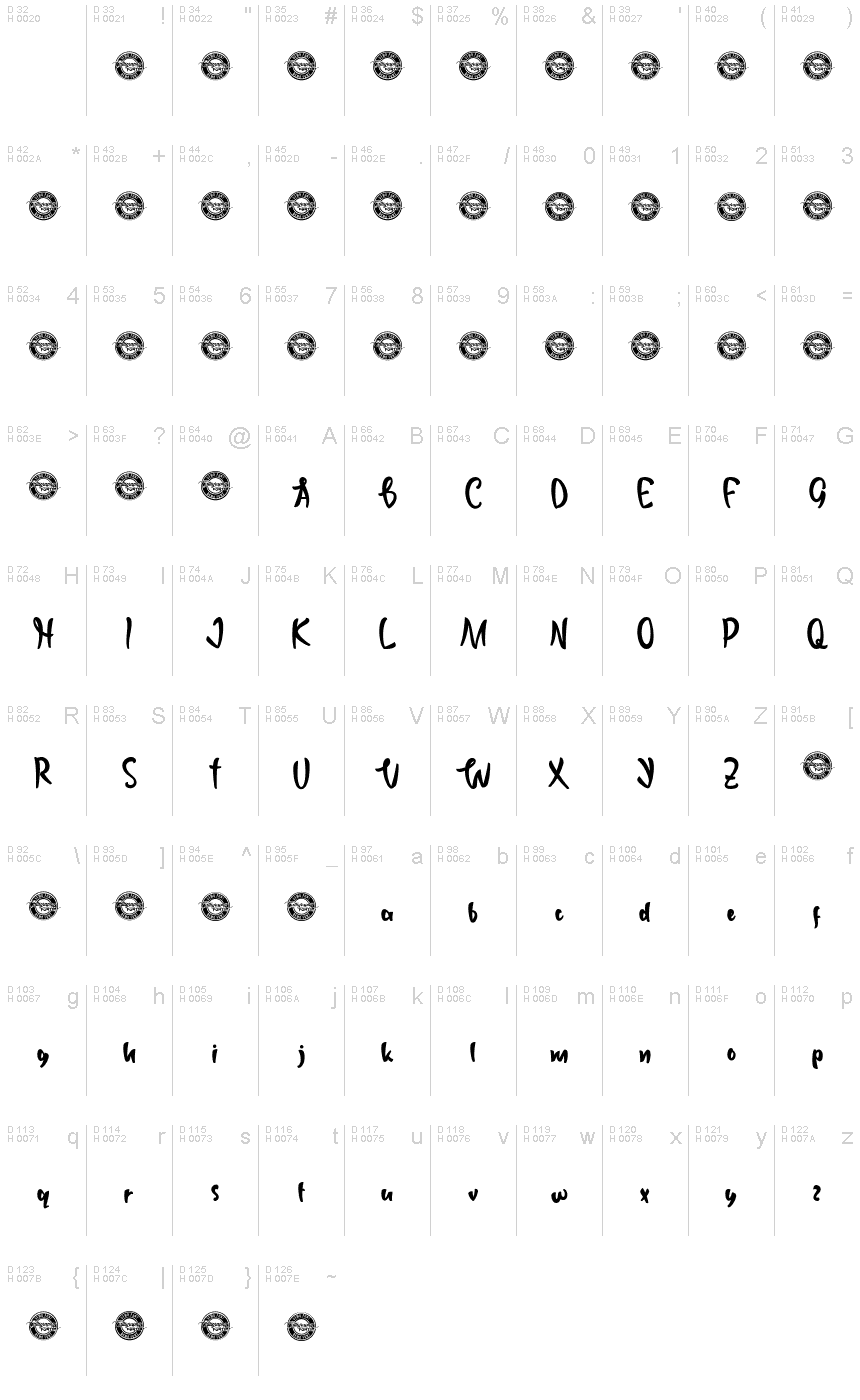
What True Demo
Meet What True, the bold and captivating brush font designed by Calligraphy Fonts. With its expressive strokes and artistic flair, this font brings a touch of elegance to any project.
Its bold weight adds a sense of confidence and impact, making it perfect for attention-grabbing headlines, logos, and branding materials. Whether you're crafting a luxury fashion magazine or designing a trendy coffee shop menu, What True will effortlessly elevate your creative endeavors with its unique blend of style and sophistication.
Let your designs speak volumes with What True!